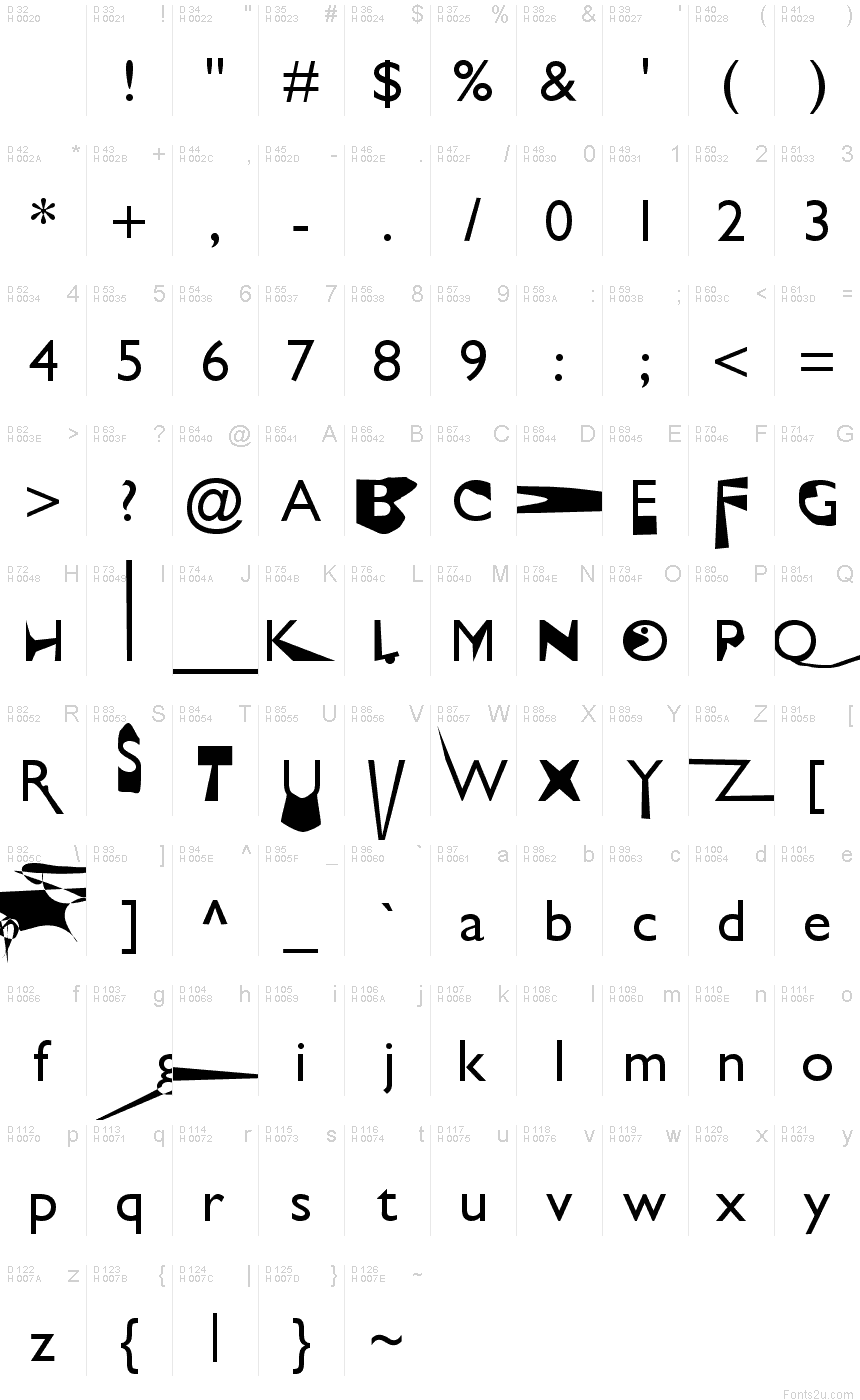
Greg Sans
Greg Sans font by Greg is a free distorted display typeface that turns clean sans shapes into something warped, hacked, and slightly unhinged. Letters bulge, shear, and fracture as if they’ve been dragged across a scanner, giving every word a restless, off-kilter energy that you can almost feel. The heavy inky strokes and abrupt cuts make even short titles look loud, strange, and unforgettable.
Using Greg Sans, you can push posters, experimental branding, glitchy album covers, zines, and underground event flyers into full-on anti-design territory. This free font thrives at large sizes where its distortions really show, while a plain geometric sans works well alongside it for supporting text.